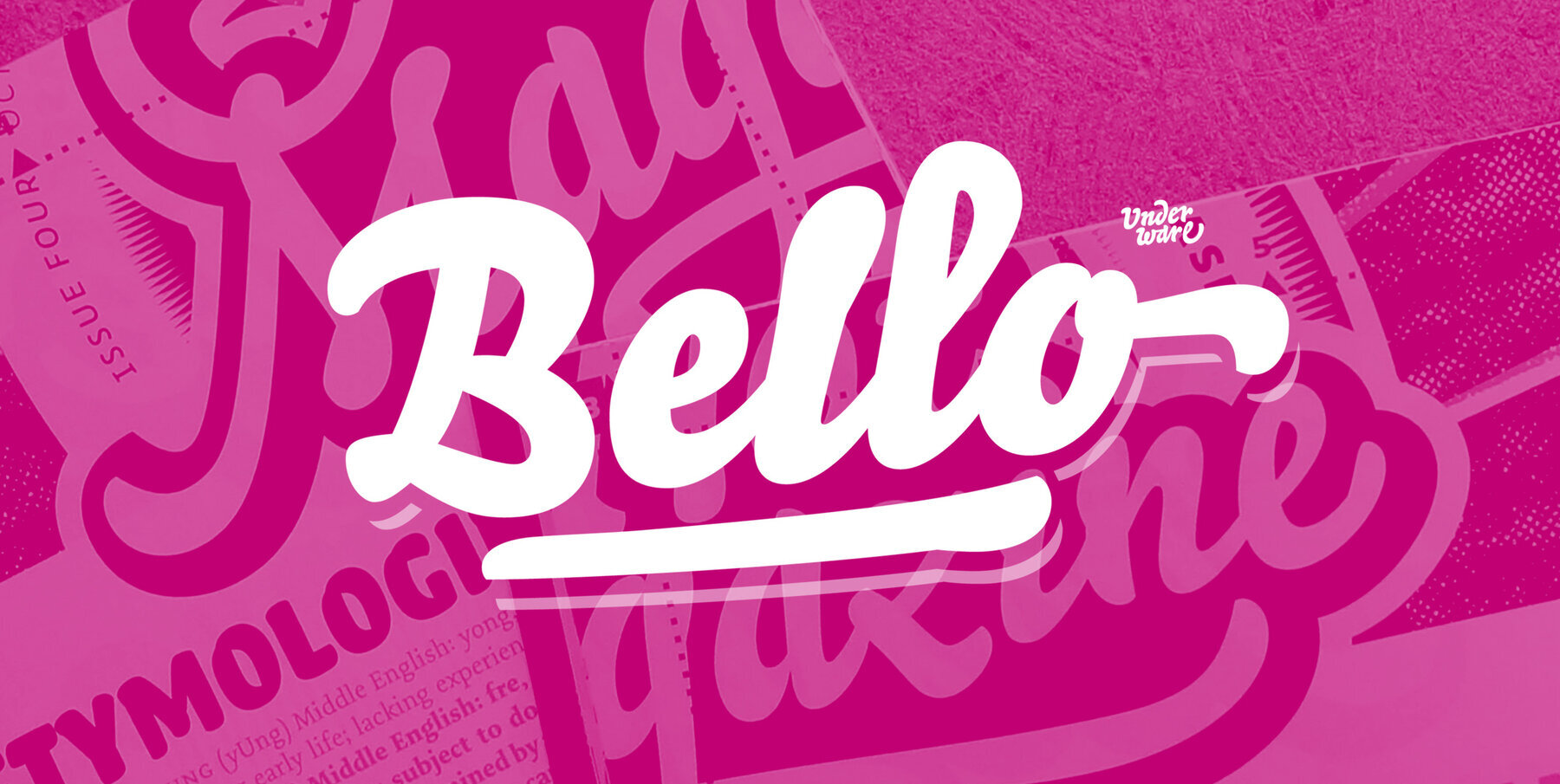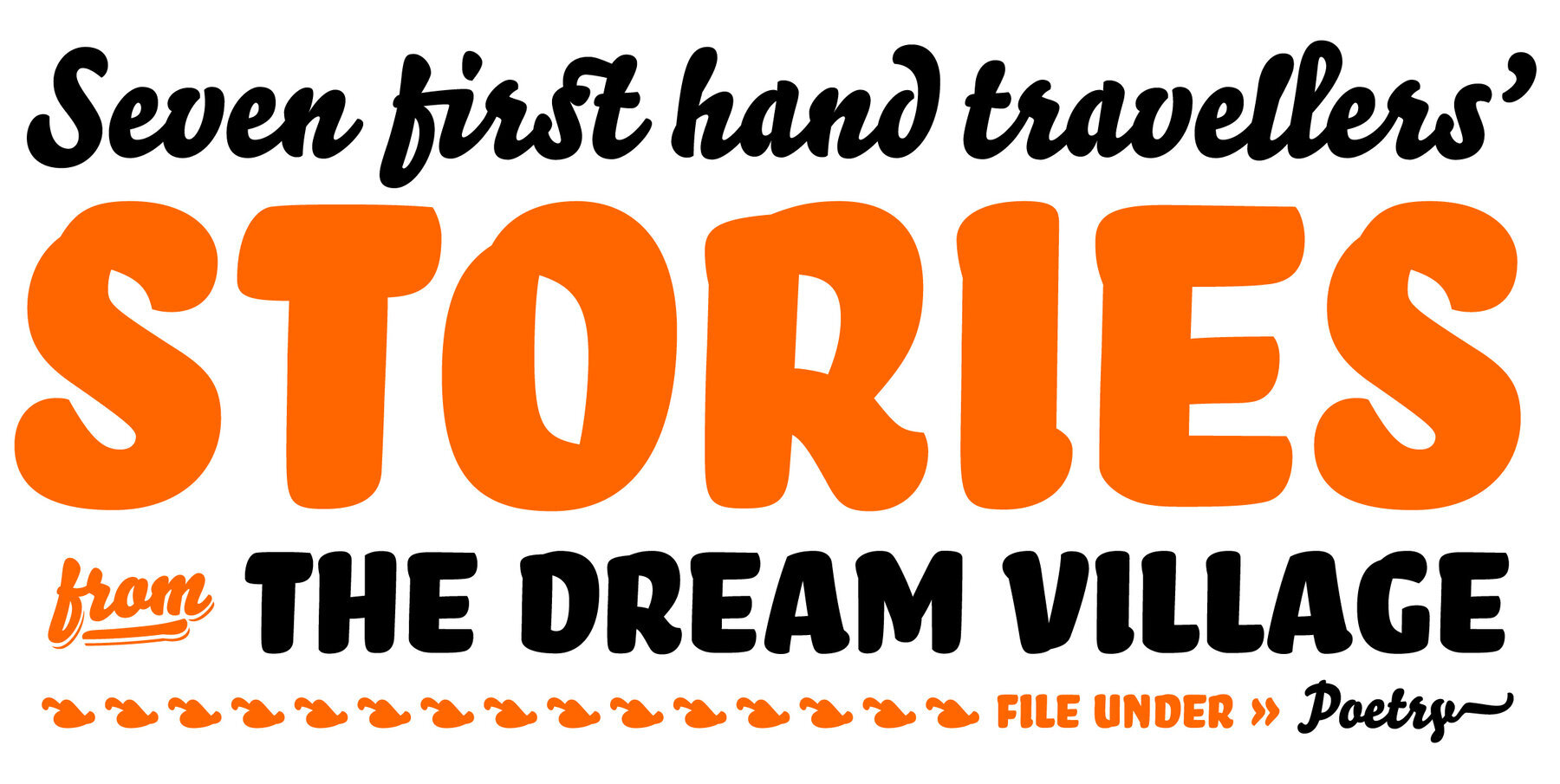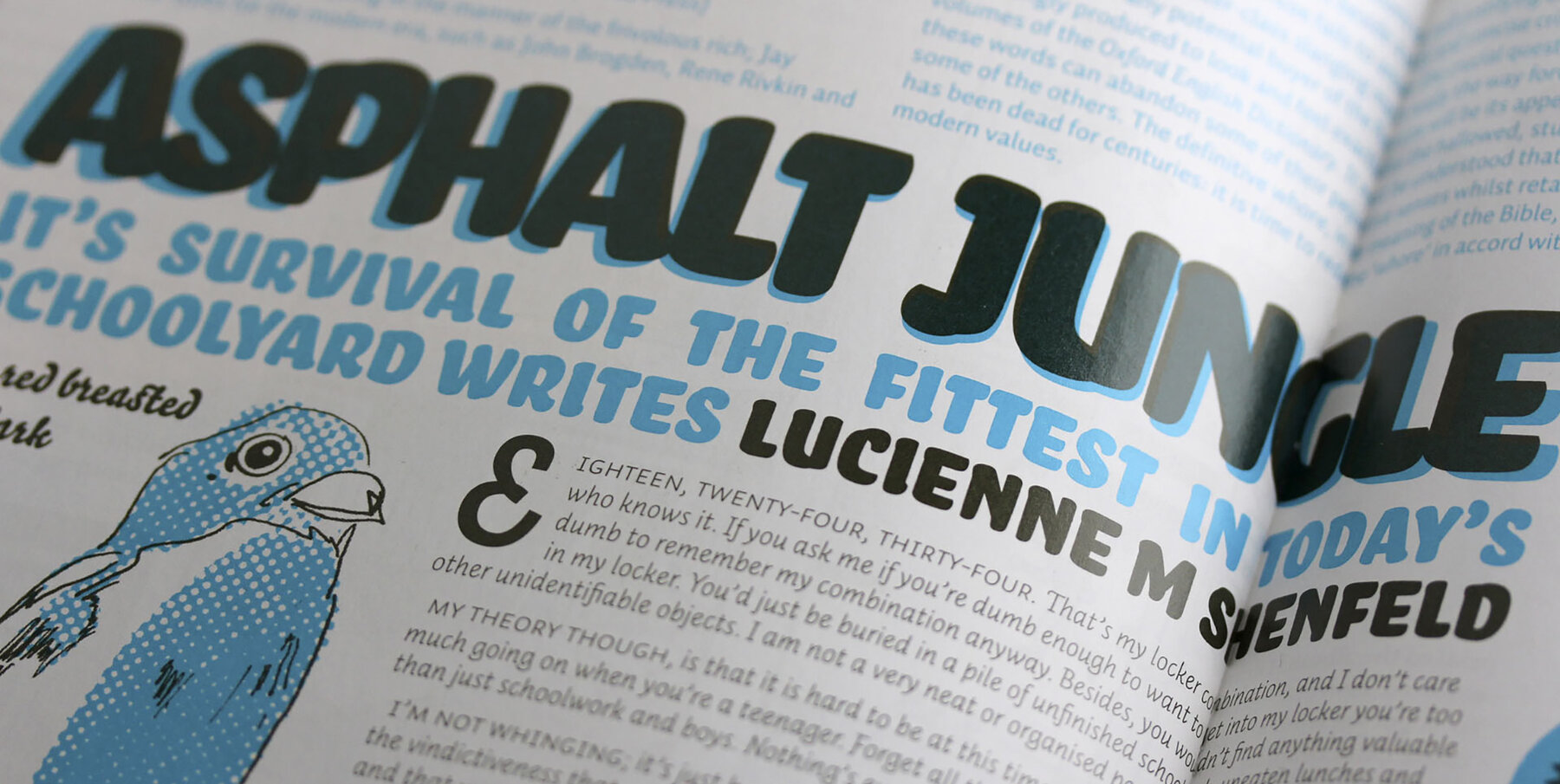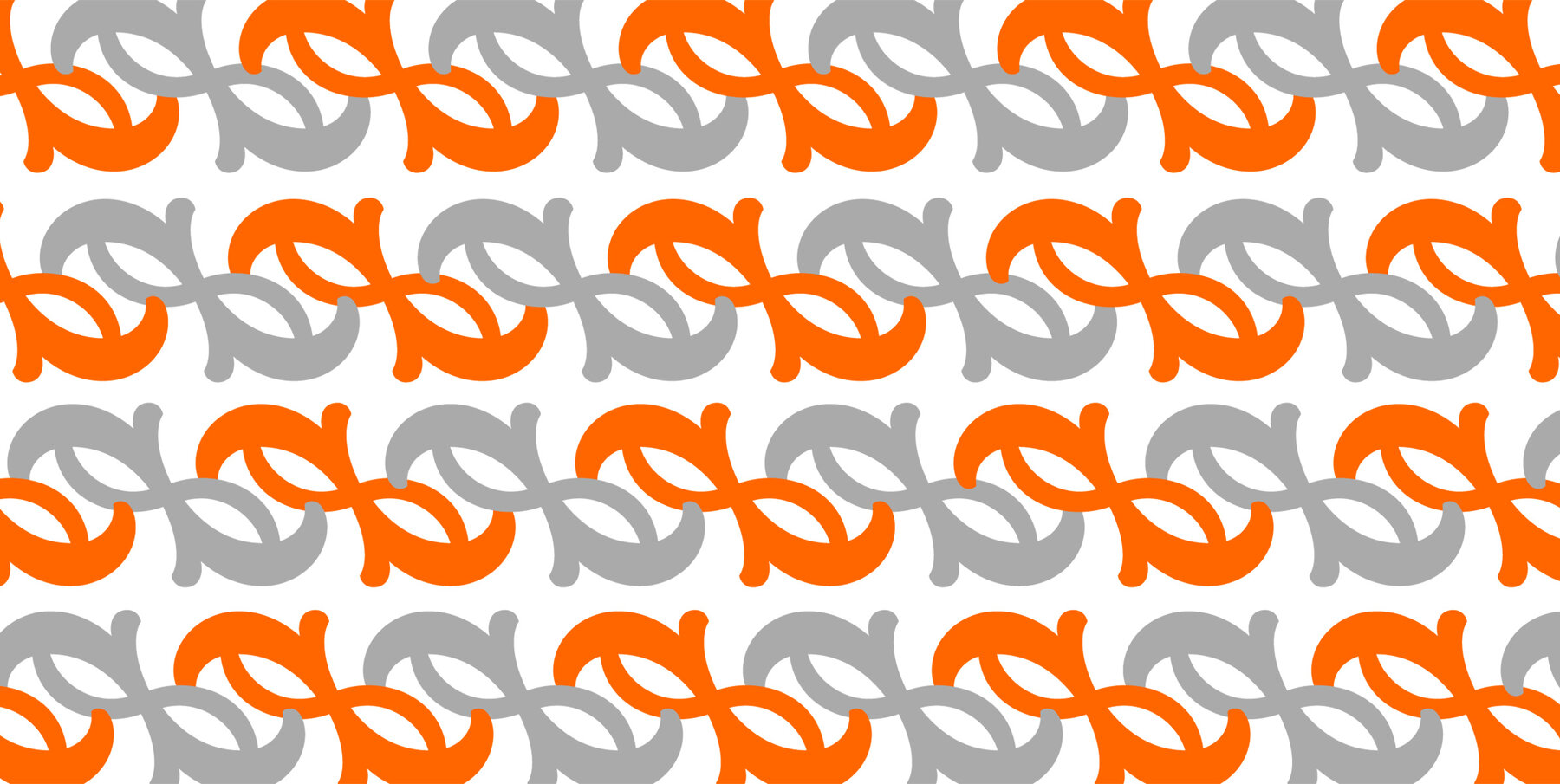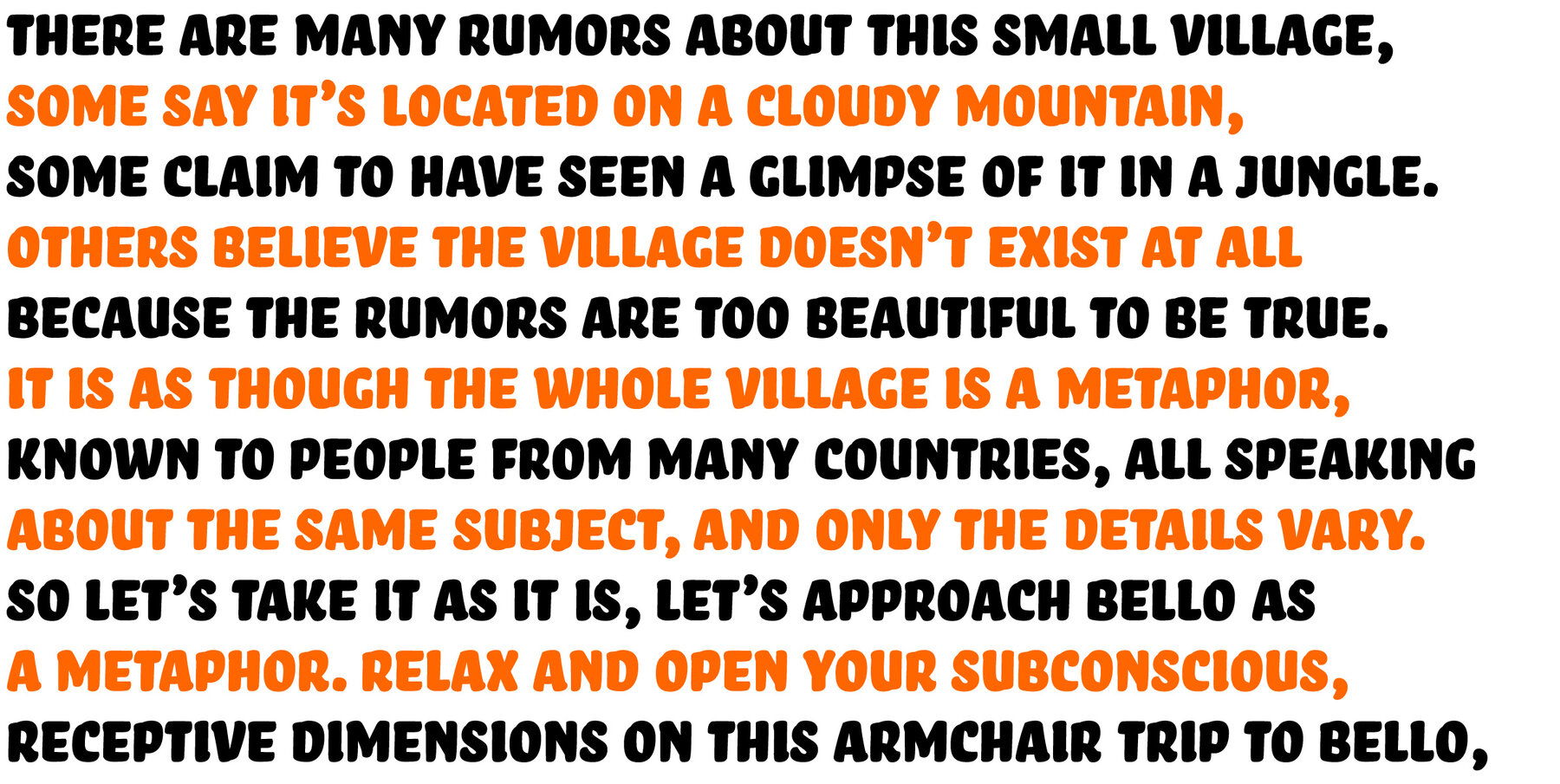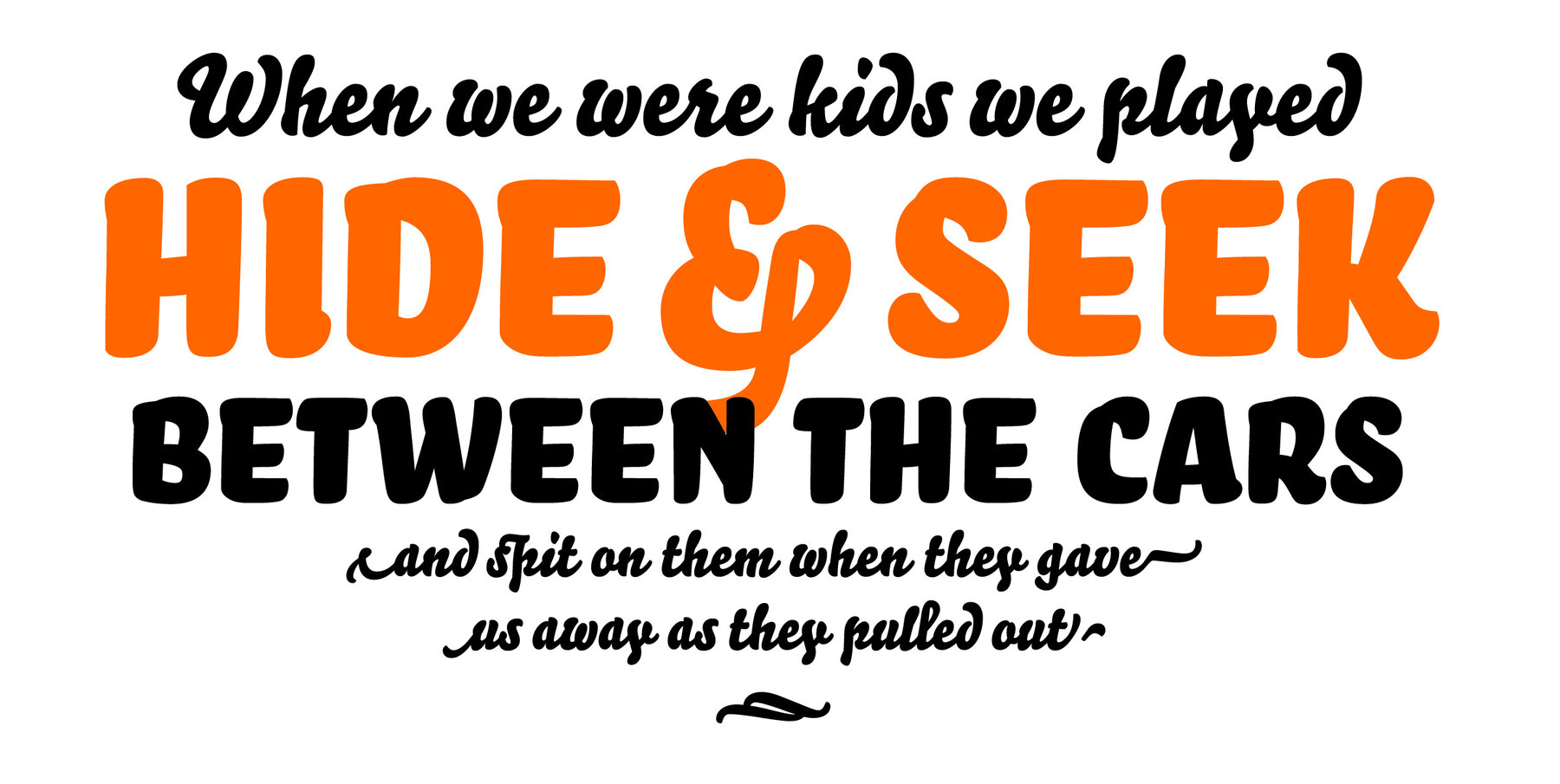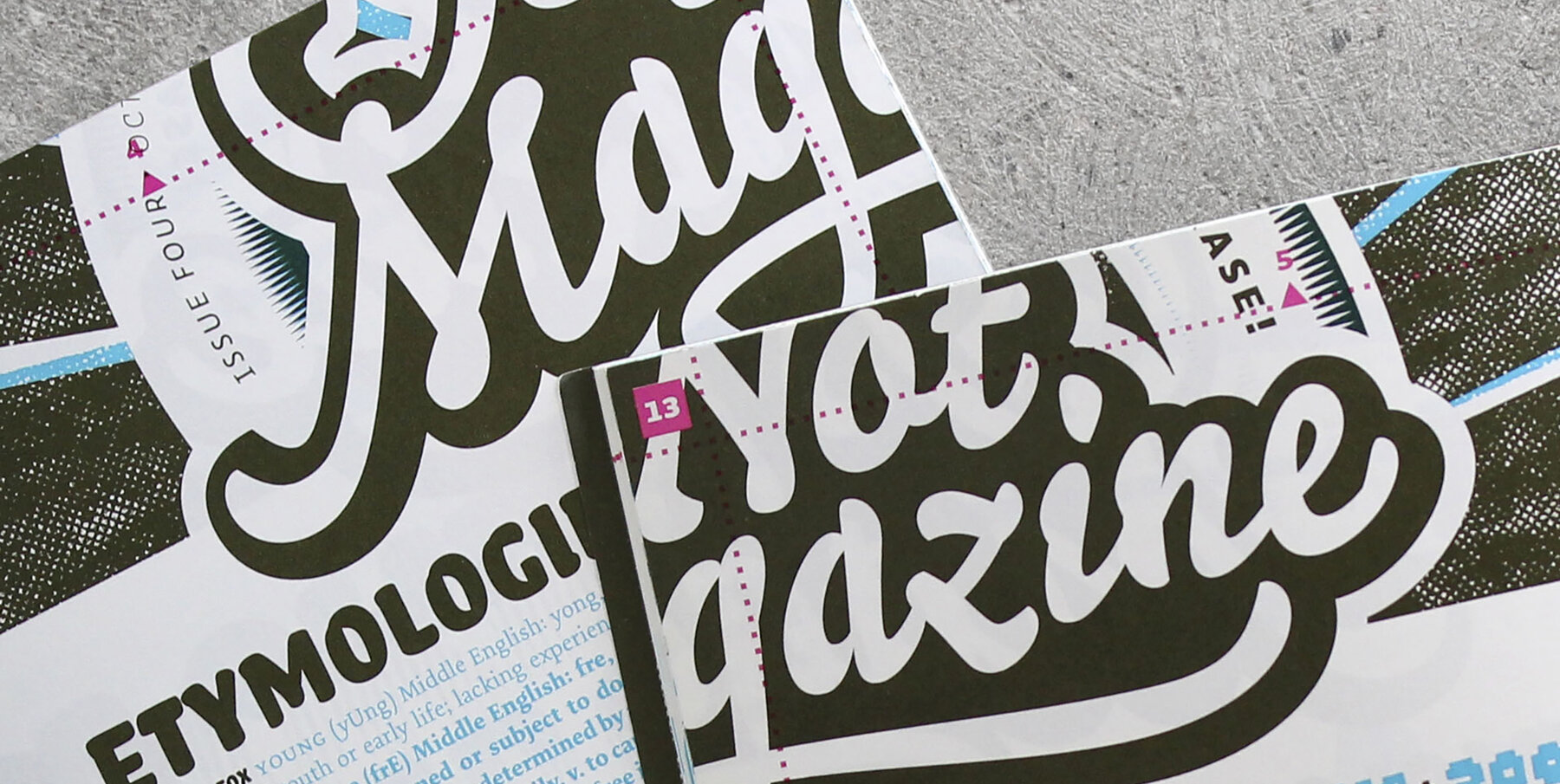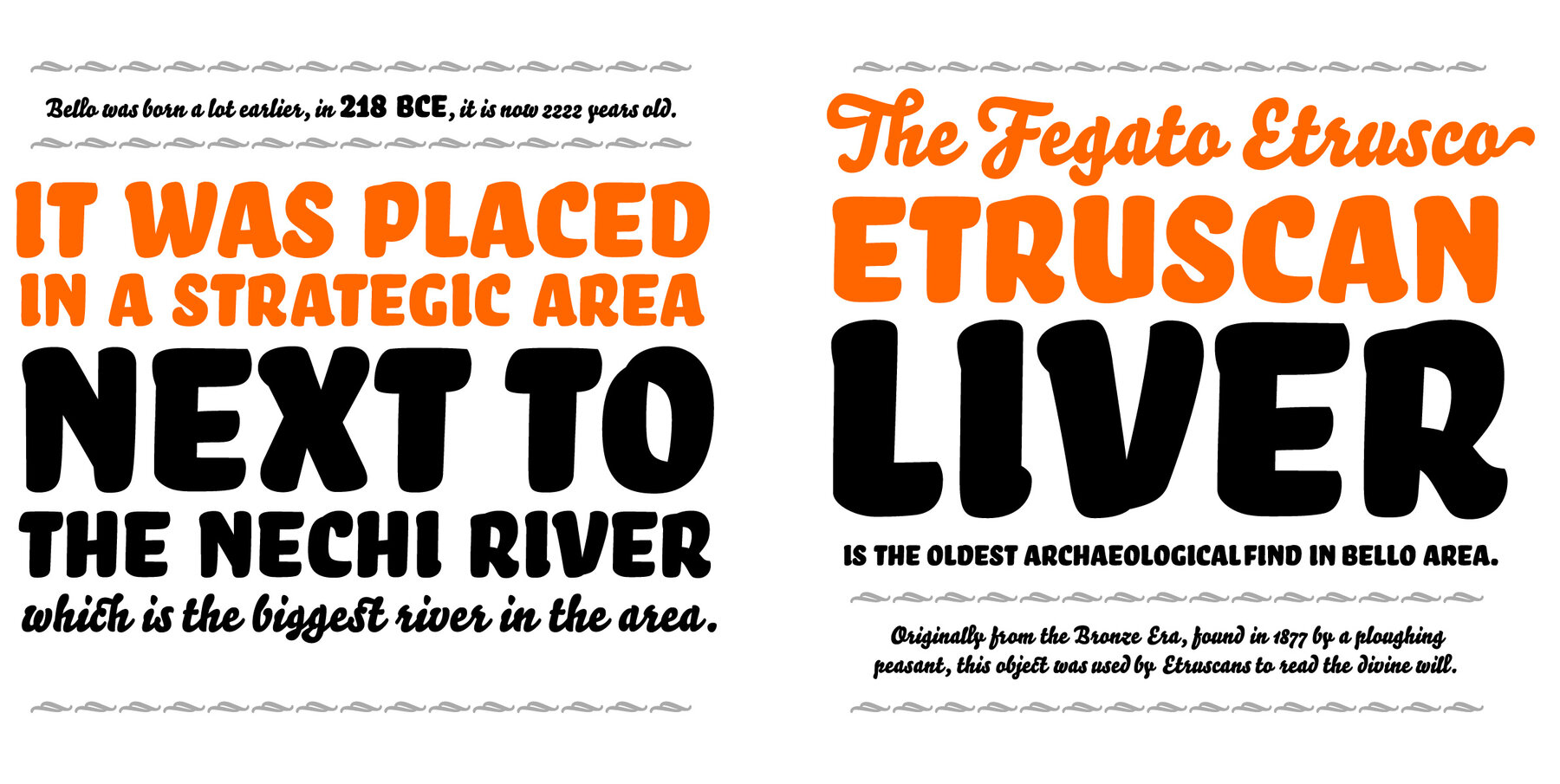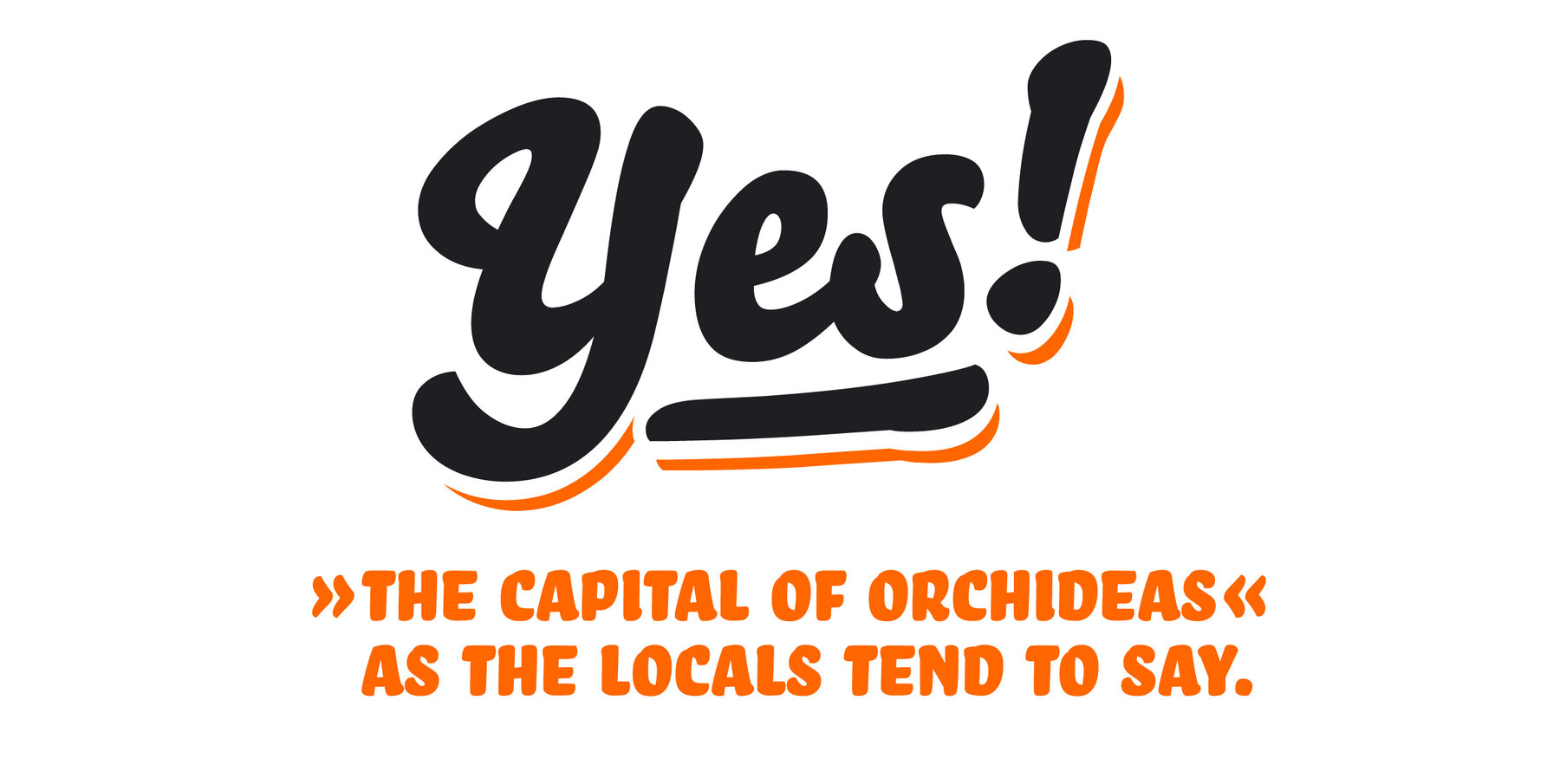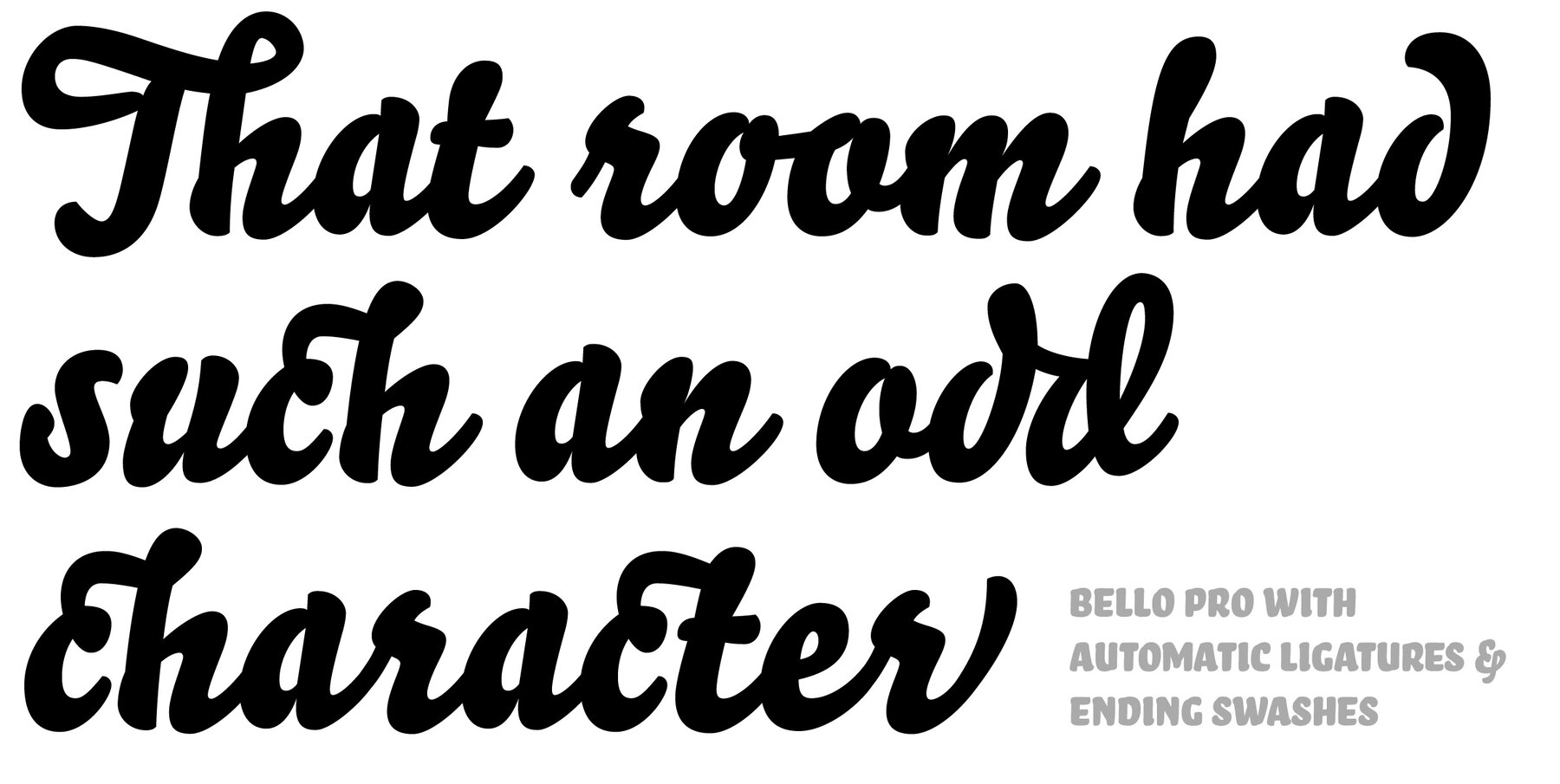
Bello Pro Font
Now check this, Underware’s blockbuster type, Bello. Bello Pro is a brush typeface for headline point sizes - it’s big & beautiful. Bello has lots of ligatures and start and ending swashes. Bello has Underware’s world-dominating Latin Plus character set, supporting a total of 219 languages (Latin 1 + 2 and beyond). After a period of hand sketching and lettering, Bello got two main styles: Script and Caps. These two fonts create a strong typographic contrast - while Bello Script Pro is flourished and flowing, Bello Caps Pro provides upright and sturdy capital lettering. Careful spacing and kerning ensures* that Bello appears like fluently written handwriting. However, that’s not enough for a hand-lettered feel. Therefore Bello comes with a set of 64 ligatures. Some of them are typographic, some made simply to create a more intimate, natural impression. For the same reasons we have added ornaments and a set of snap-on beginning and ending swashes which attach to the lowercase letters of Bello. Trust the brush! *So take care: use ‘metrics’, not ‘optical’ as a spacing setting in layout apps.